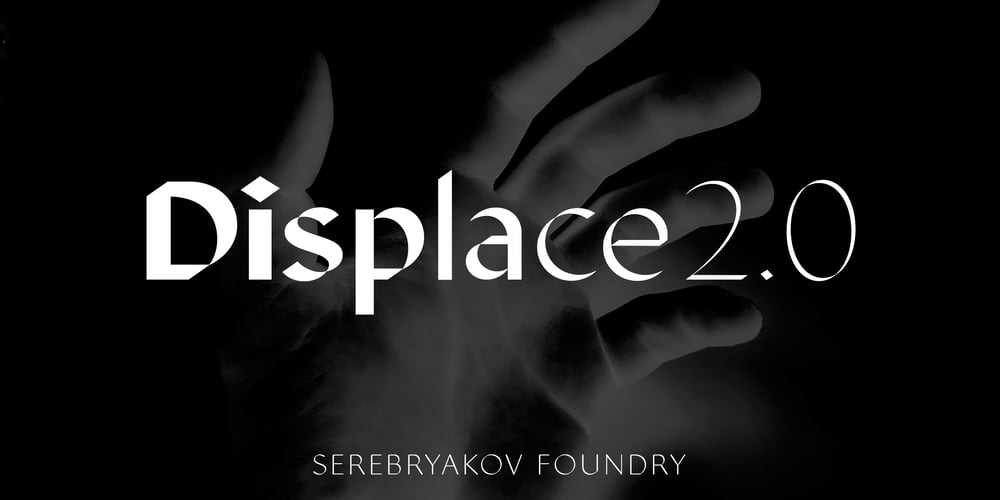
Displace 2.0 Font Family was designed by Denis Serebryakov and published by Serebryakov. Displace 2.0 contains 10 styles and family package options. Displace 2.0 is a display sans-serif font family. Displace 2.0 is a humanistic sans-serif based on the calligraphic shapes with a pronounced handwriting contrast and open forms typeface. It has a natural thick-thin swelling and shrinking of the strokes as if it were draw calligraphicaly. Displace font family includes five weights with italics: Light, Regular, Medium, Bold and Black. Try it!